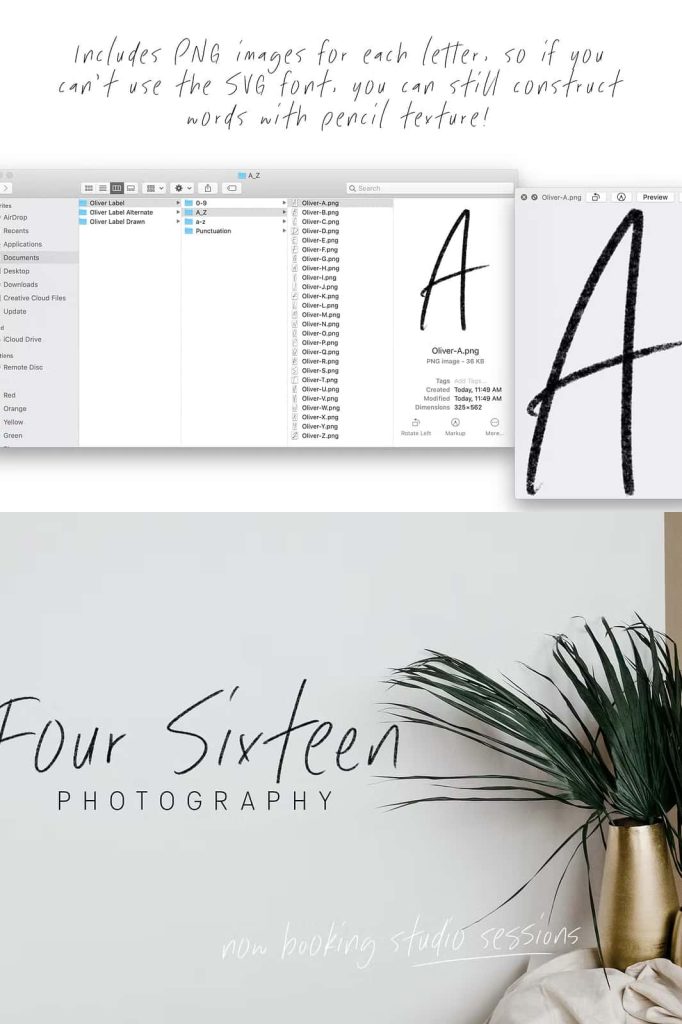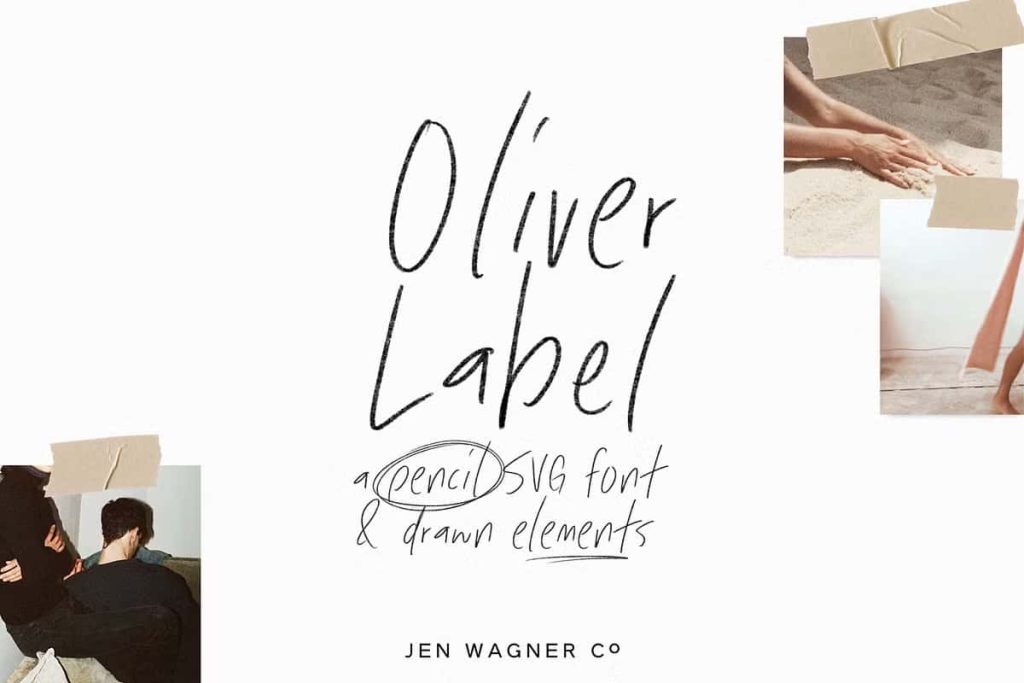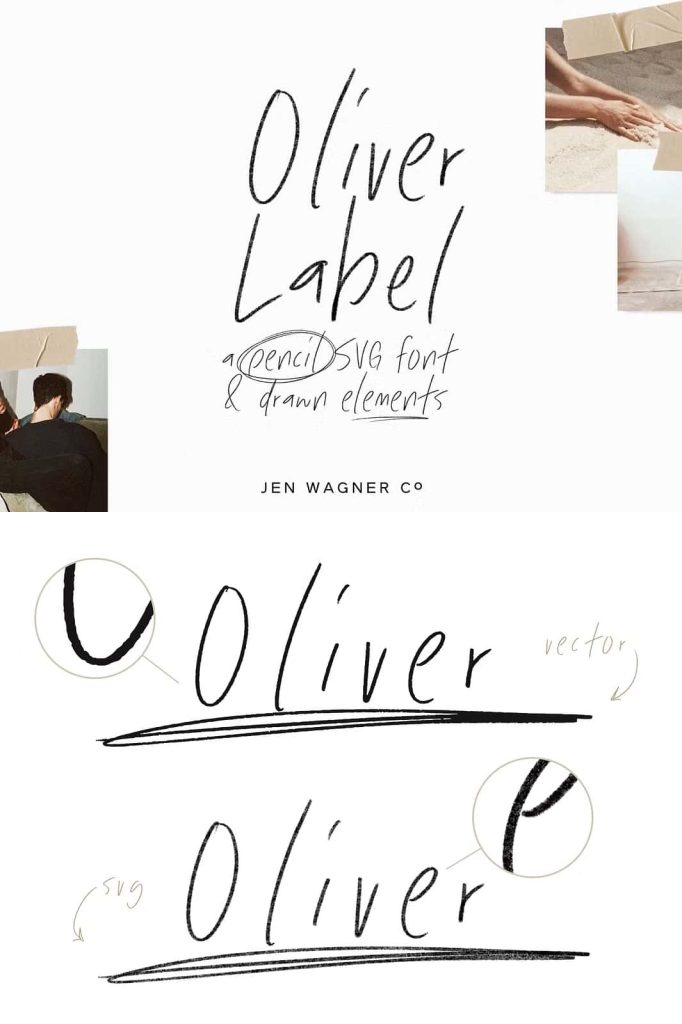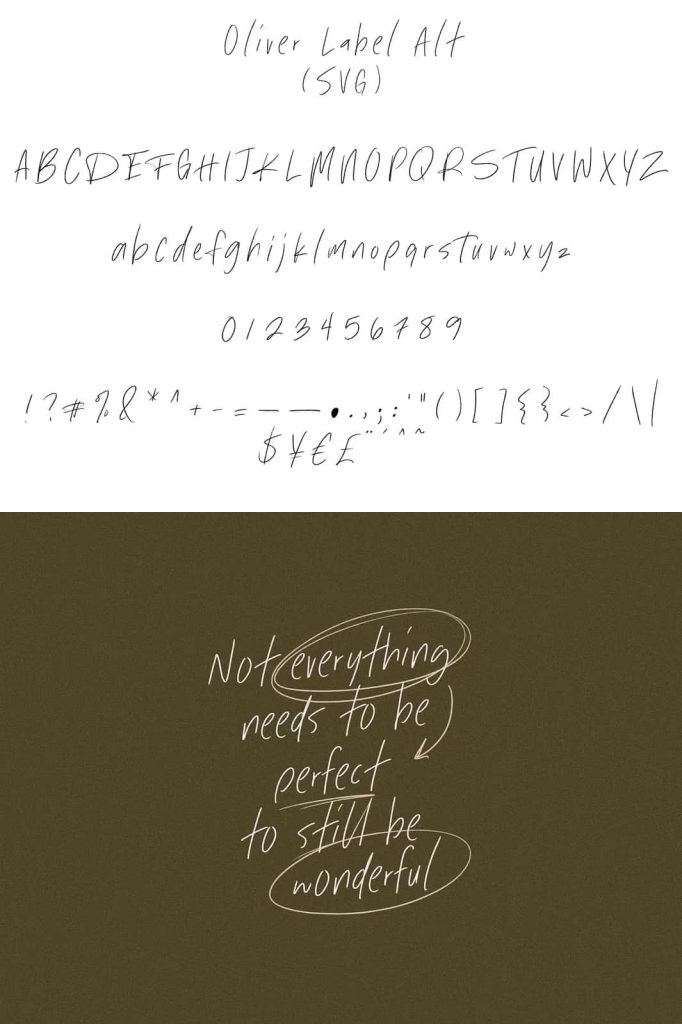
Oliver Label SVG Font
Oliver Label is a realistic SVG handwritten font designed to recreate the natural appearance of authentic pencil writing. Built for designers, content creators, photographers, bloggers, and creative professionals, Oliver Label eliminates the need to handwrite notes manually while still delivering the warmth and personality of genuine pencil lettering.
Adding handwritten annotations to photos, presentations, social media graphics, blog posts, and branding materials often requires extra time and artistic skill. Oliver Label solves this challenge by providing an incredibly realistic pencil-textured font that captures the subtle imperfections, texture, and organic movement of handwriting. With support for SVG OpenType technology and compatibility with Adobe Photoshop CC 2017+ and Adobe Illustrator CC 2017+, you can create convincing handwritten effects in just a few minutes.
Whether you are designing inspirational quotes, educational graphics, product mockups, marketing materials, or creative presentations, Oliver Label allows you to add expressive handwritten typography quickly without sacrificing authenticity.
Experience Realistic Pencil Handwriting
Unlike ordinary handwritten fonts that rely on clean vector outlines, Oliver Label uses SVG OpenType technology to preserve authentic pencil textures within every character. The result is typography that looks remarkably similar to real handwriting, complete with subtle shading, natural pressure variations, and organic pencil grain.
This textured appearance creates an immediate sense of realism that traditional fonts cannot achieve. Every letter carries the handcrafted imperfections that make handwritten notes feel personal, approachable, and visually engaging.
Instead of spending valuable time writing directly on paper or using a drawing tablet, designers can simply type their message while maintaining the authentic look of genuine pencil lettering.
Save Time Without Losing Authenticity
Creating handwritten notes manually often slows down the design process, especially when multiple revisions are required. Oliver Label streamlines your workflow by allowing you to edit handwritten text instantly while preserving a realistic hand-drawn appearance.
Need to update a quote, change a title, or revise a marketing graphic? Simply edit the text instead of rewriting everything from scratch. This flexibility makes Oliver Label an invaluable tool for professional designers and content creators working under tight deadlines.
Perfect for Social Media and Digital Content
Handwritten typography remains one of the most effective ways to make digital content feel personal and engaging. Oliver Label helps creators build stronger visual connections by adding natural handwritten notes to social media graphics, blog banners, YouTube thumbnails, Pinterest designs, and digital advertisements.
The realistic pencil texture creates a casual yet professional appearance that attracts attention while maintaining a friendly and authentic visual style.
Ideal Digital Applications
- Instagram graphics
- Pinterest pins
- Facebook posts
- YouTube thumbnails
- Blog featured images
- Email marketing graphics
- Presentation slides
- Website banners
- Digital planners
Excellent for Branding and Creative Projects
Oliver Label adds personality to branding materials by introducing handcrafted typography that feels approachable and genuine. Businesses can use the font to create product labels, promotional graphics, packaging, advertising materials, greeting cards, and personalized marketing campaigns that stand apart from standard digital typography.
The authentic pencil appearance works especially well for creative businesses, handmade brands, educational products, artisan packaging, lifestyle companies, and personal branding projects.
Create Beautiful Quotes and Handwritten Notes
Inspirational quotes, annotations, captions, and creative notes instantly become more engaging when presented with realistic handwriting. Oliver Label makes it easy to create visually appealing quote graphics that look naturally handwritten without requiring advanced illustration skills.
Designers can layer handwritten notes over photographs, mood boards, presentations, journals, scrapbooks, and creative layouts to achieve a warm and authentic visual style.
Professional Compatibility with Adobe Creative Cloud
Oliver Label utilizes SVG OpenType technology and works seamlessly with Adobe Photoshop CC 2017+ and Adobe Illustrator CC 2017+, allowing users to take full advantage of its realistic texture rendering.
Because the font stores detailed bitmap textures inside every character, it produces highly convincing handwritten effects that standard vector fonts simply cannot replicate. This technology enables designers to maintain exceptional visual quality while enjoying the convenience of editable typography.
Versatile Across Multiple Creative Applications
Oliver Label SVG Font is the perfect solution for anyone seeking realistic pencil-textured handwriting without the effort of writing manually. Featuring authentic SVG OpenType technology, natural pencil textures, and seamless compatibility with Adobe Photoshop CC 2017+ and Illustrator CC 2017+, this font helps designers create handwritten notes, inspirational quotes, branding materials, blog graphics, presentations, packaging, and countless other creative projects with remarkable ease. Oliver Label transforms ordinary text into expressive handwritten typography that feels warm, personal, and genuinely crafted by hand.